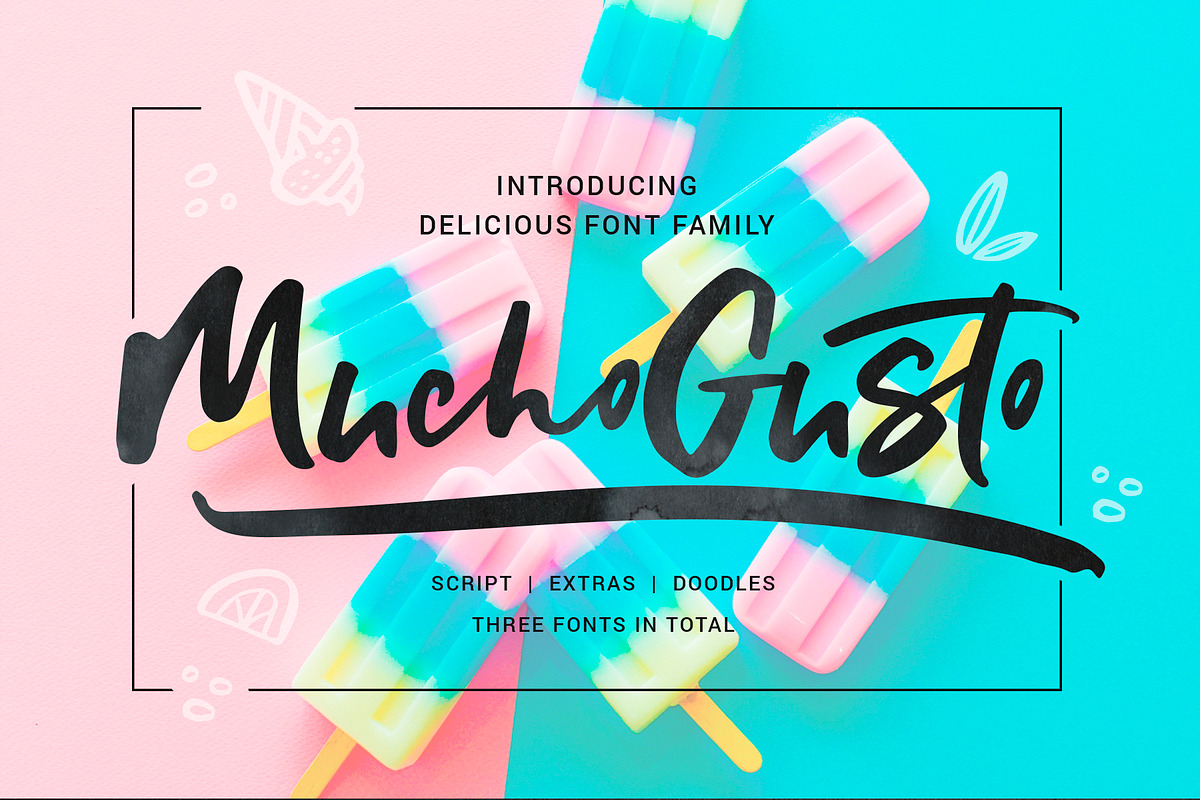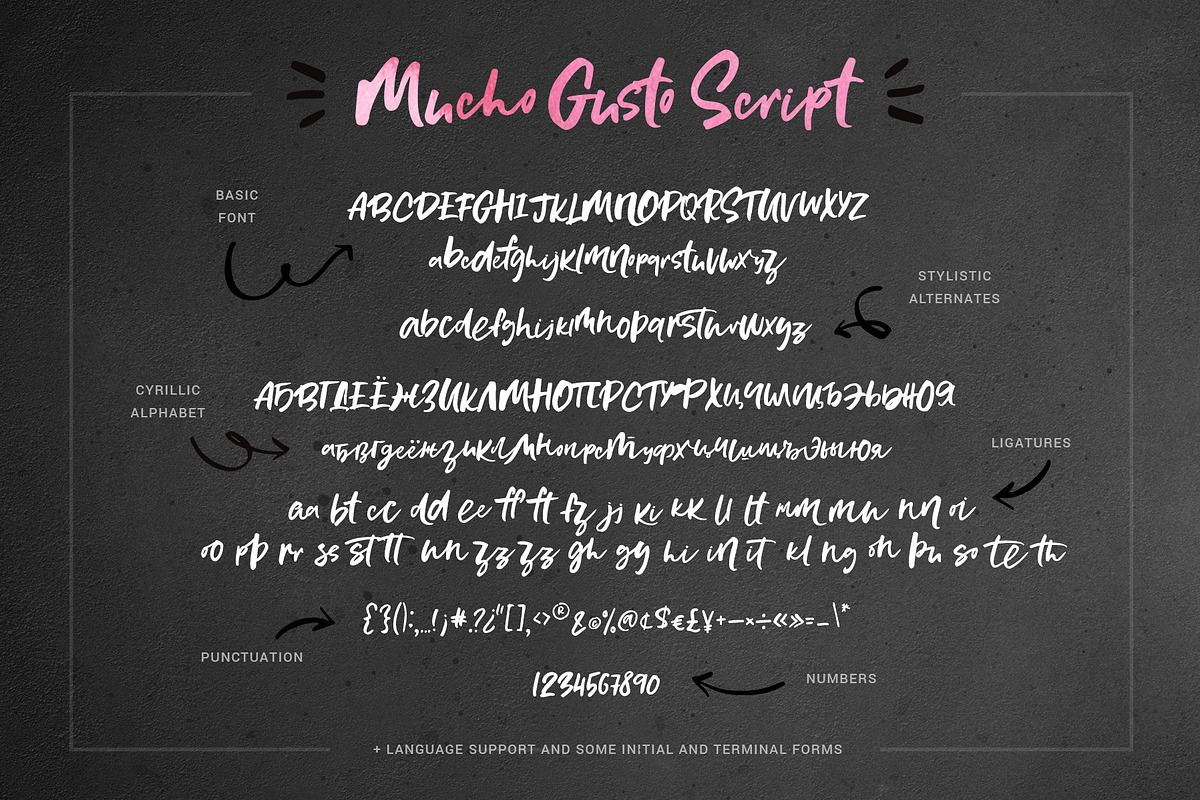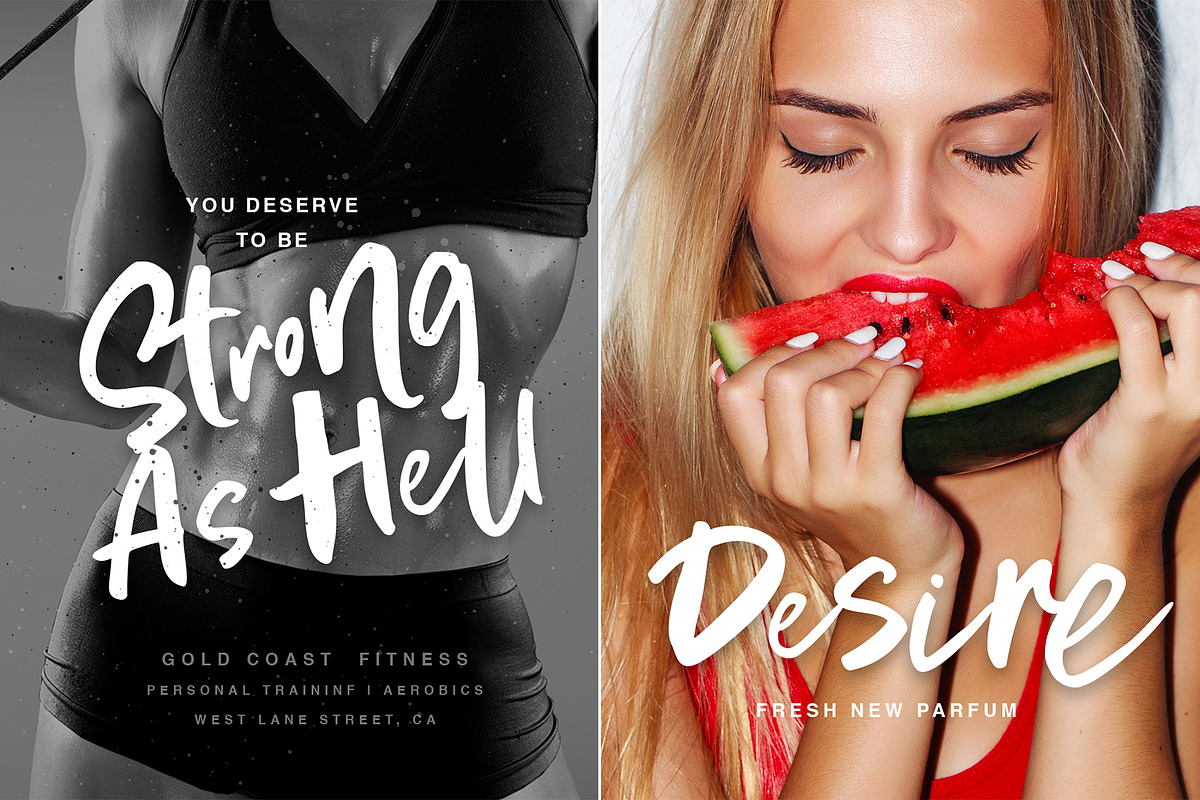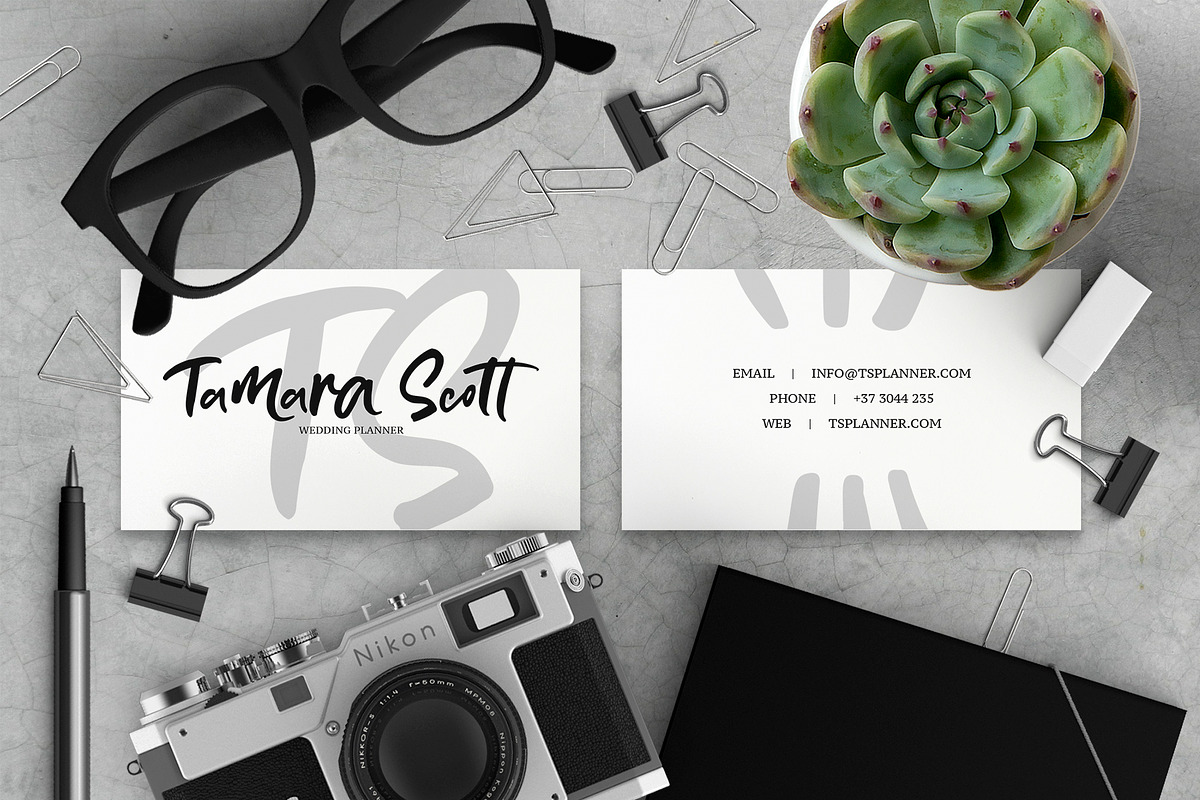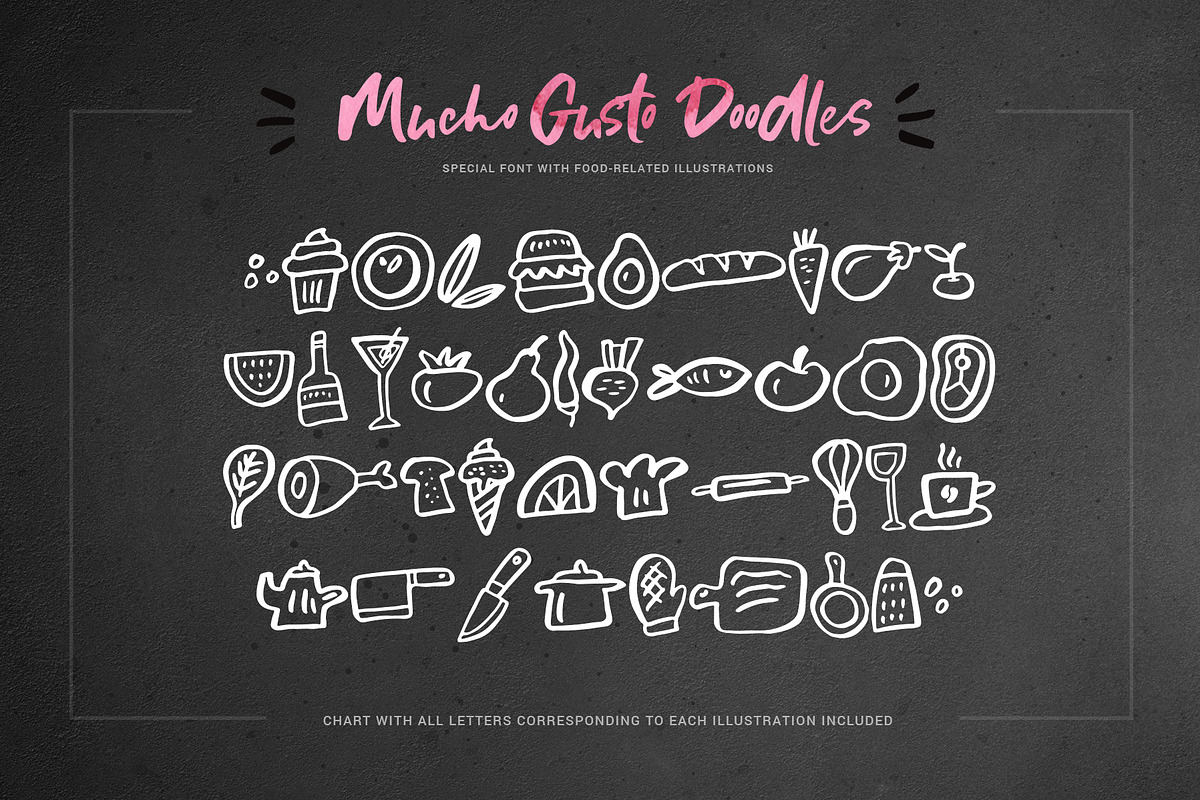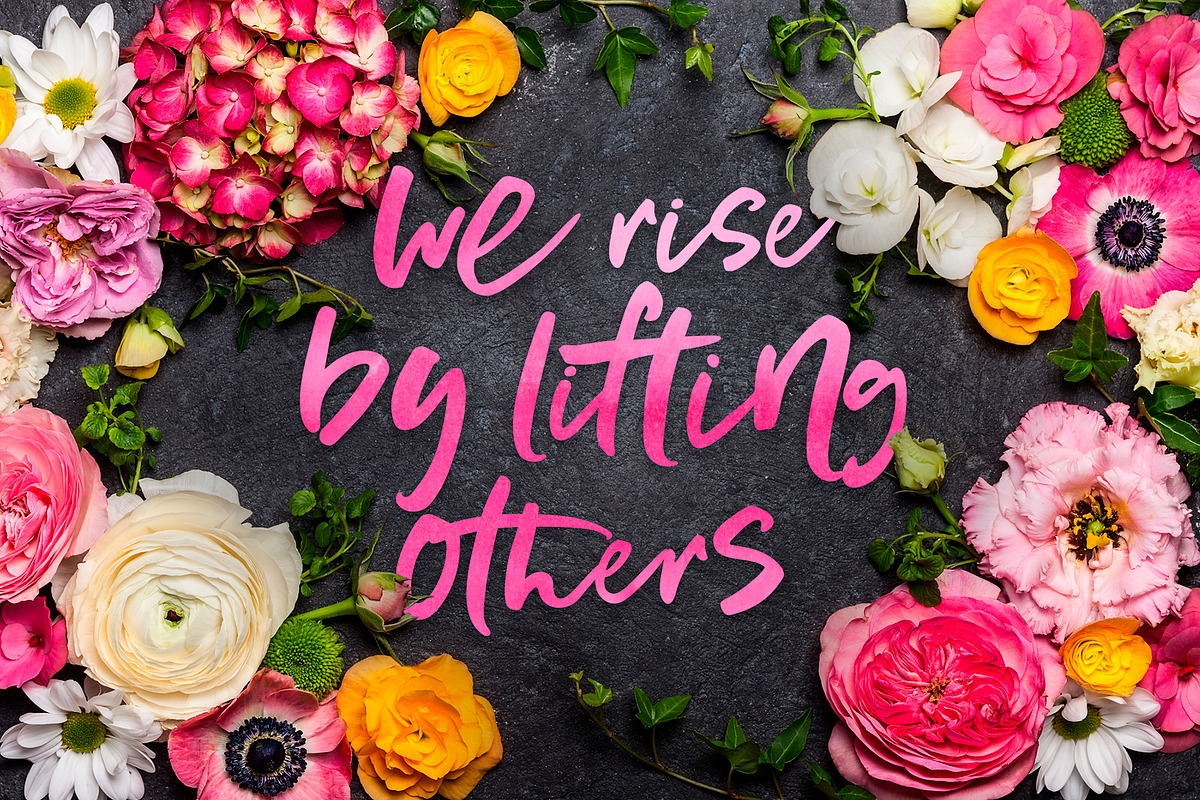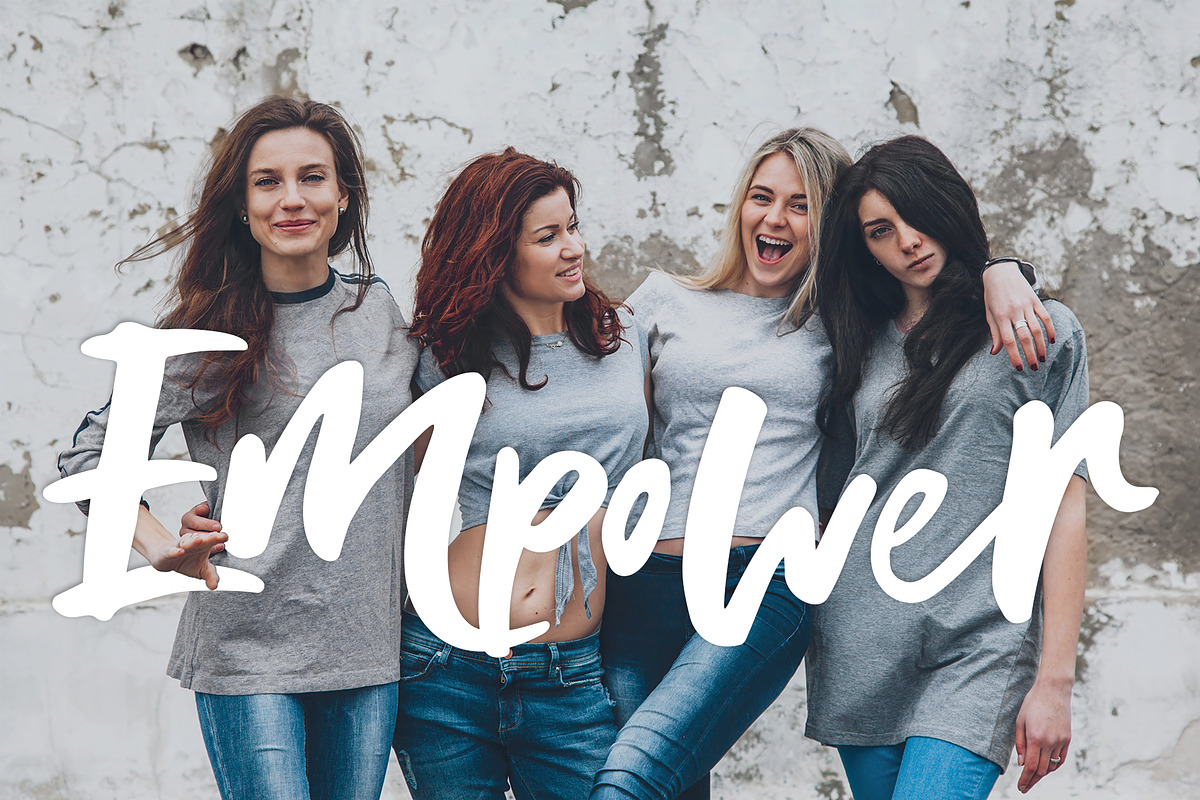
Mucho Gusto Font Family
I'm super-pleased to introduce you my new font family Mucho Gusto which consist of three fonts: script, extras (hand-lettered catchwords, arrows) and doodles. This font family was created specifically for food industry and would look great on menus, restaurant logos, recipe cards. That doesn't mean that you can't use it for other industries: check out how Mucho Gusto looks on product packaging, mugs, photos on the preview.
Mucho Gusto is a well-rounded handdrawn script font created with round brush and ink. It has dancing baseline and because letter size vary it's very active, powerful and noticeable (yet easy to read). Mucho Gusto has full set of lowercase alternates (so you can imitate lettering) as well as tons of ligatures.
Mucho Gusto has extensive language support - besides latin and most of European languages it has cyrillic characters, so you can type in Russian. If your language is not supported - drop me a PM and maybe I'll be able to extend language support even further.
Besides "normal" script font Mucho Gusto family have two symbols fonts. You can use this fonts as you do any other fonts - just when you type for example "a" you will see a catchword or illustration that corresponds to the symbol. The chart with all symbols and corresponding letters is included.